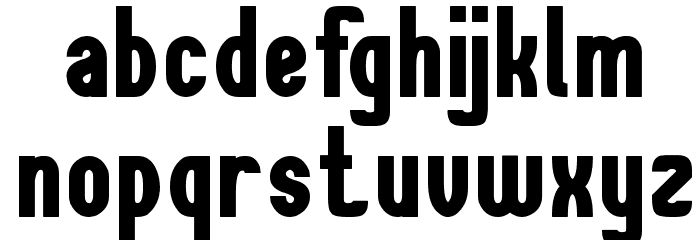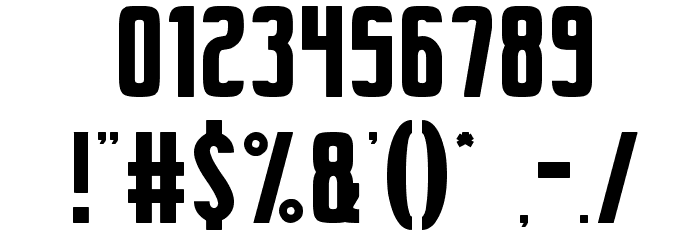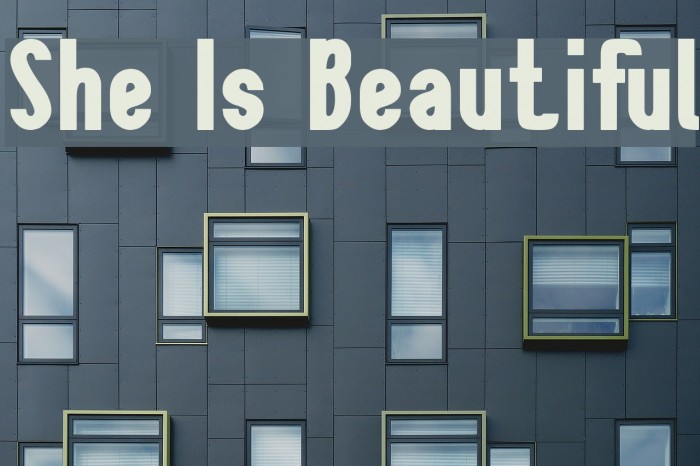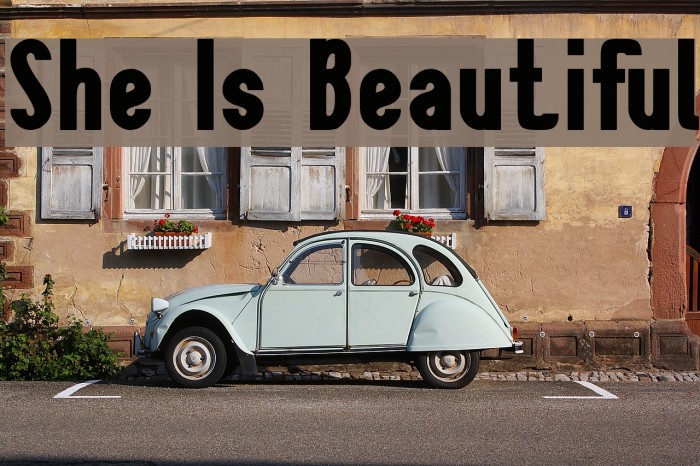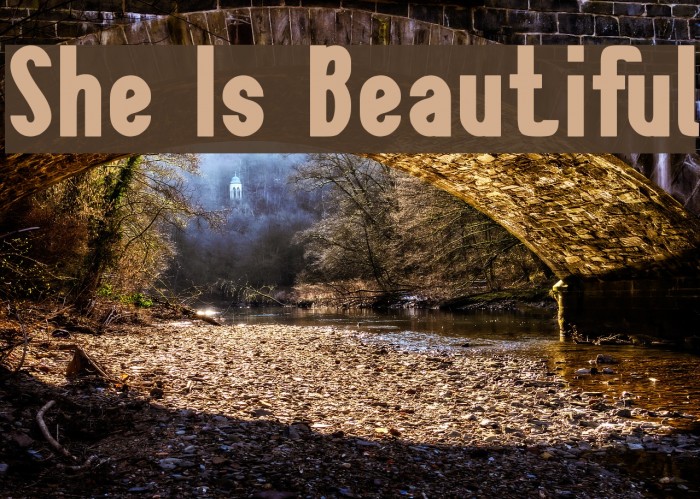
She Is Beautiful Font
This font features a bold and robust design with a strong presence. The characters are uniformly thick, giving it a solid and impactful appearance. The uppercase letters are tall and slightly condensed, while the lowercase letters maintain a consistent height, providing a cohesive look. The numbers are clear and easy to read, matching the boldness of the alphabet. Special characters are distinct and well-integrated, ensuring versatility in various applications. The overall style is modern with a hint of vintage charm, making it suitable for projects that require a strong visual statement.
A bold, modern font with a vintage touch, featuring strong, uniform characters.
- Proposed Projects: Ideal for headlines, posters, branding, and any design requiring a bold statement.